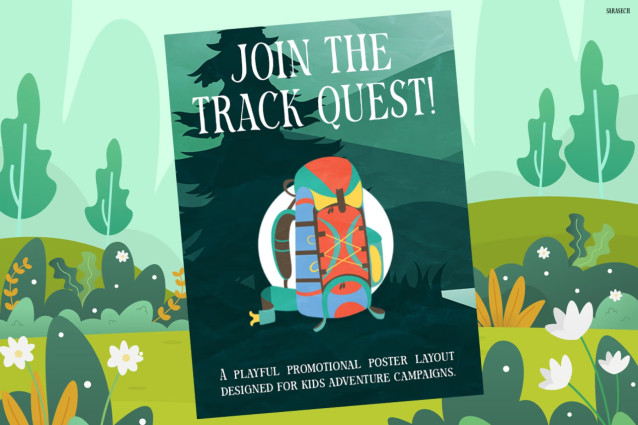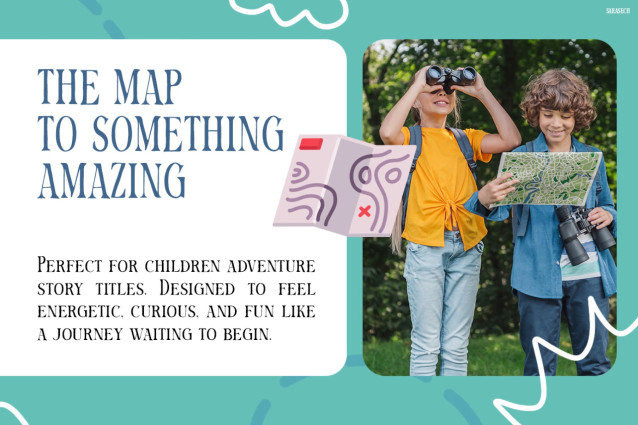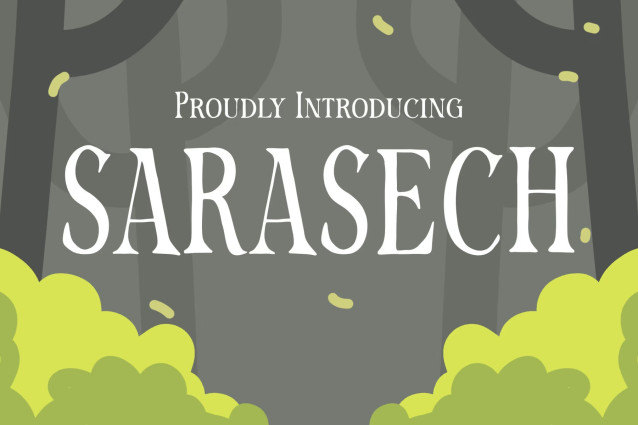
Sarasech – Playful Adventure Kids Font with Storybook Charm
Kids Font Sarasech is a delightful, whimsical typeface that instantly brings imagination to life with its playful curves and storybook-inspired design. Moreover, each letter feels like it belongs in a magical forest adventure—soft, friendly, and full of personality. In addition, the aesthetic blends hand-drawn charm with clean readability, making it visually engaging while still highly functional. Not only that, its balanced proportions and decorative flair help capture attention effortlessly. As a result, it works beautifully across many creative projects. With support for 67 languages, this font also ensures global usability, making it a versatile and inclusive choice for designers everywhere.
Sarasech is carefully crafted to evoke curiosity, fun, and exploration. For instance, it perfectly matches themes like kids’ adventures, nature journeys, and imaginative storytelling. Furthermore, the font performs exceptionally well in projects that need a cheerful and inviting tone, such as children’s books, educational content, posters, branding, packaging, and social media visuals. In addition, its unique character shapes add warmth and friendliness, making every word feel lively and engaging. Because of this, your designs will stand out while still feeling approachable. At the same time, Sarasech maintains excellent readability, ensuring both beauty and clarity in every use.